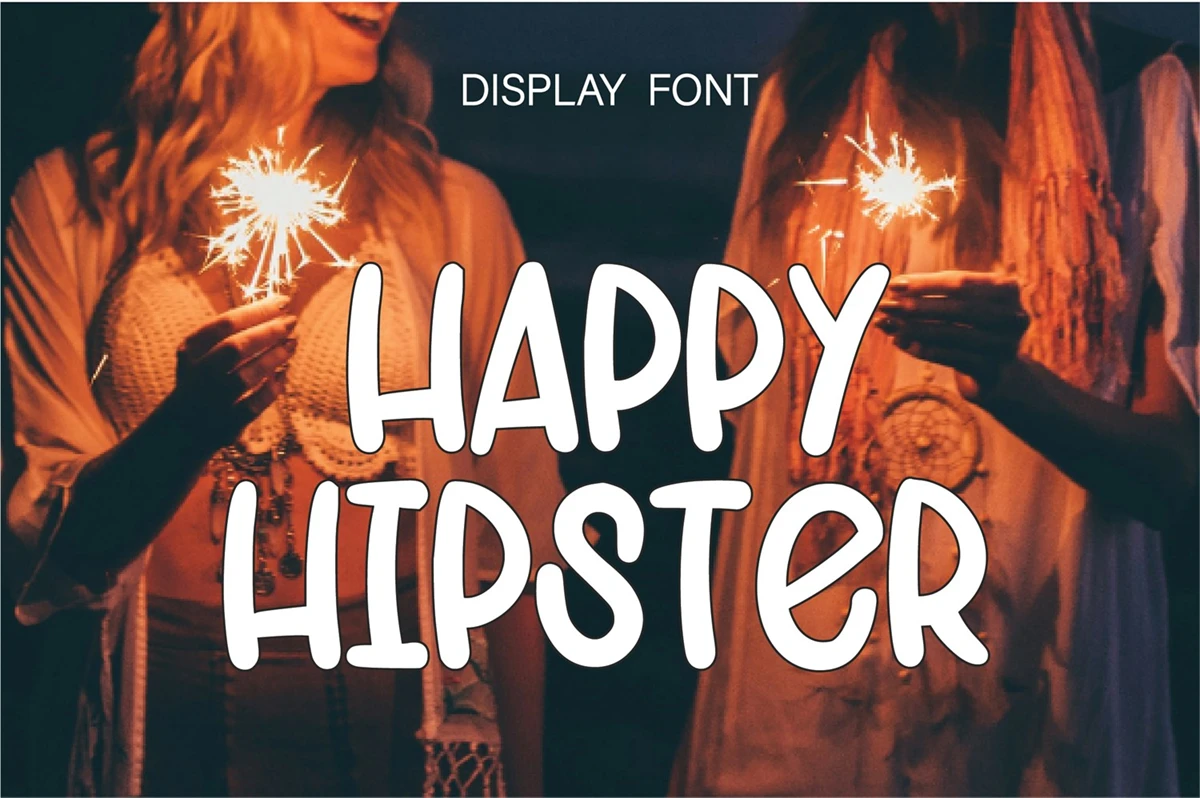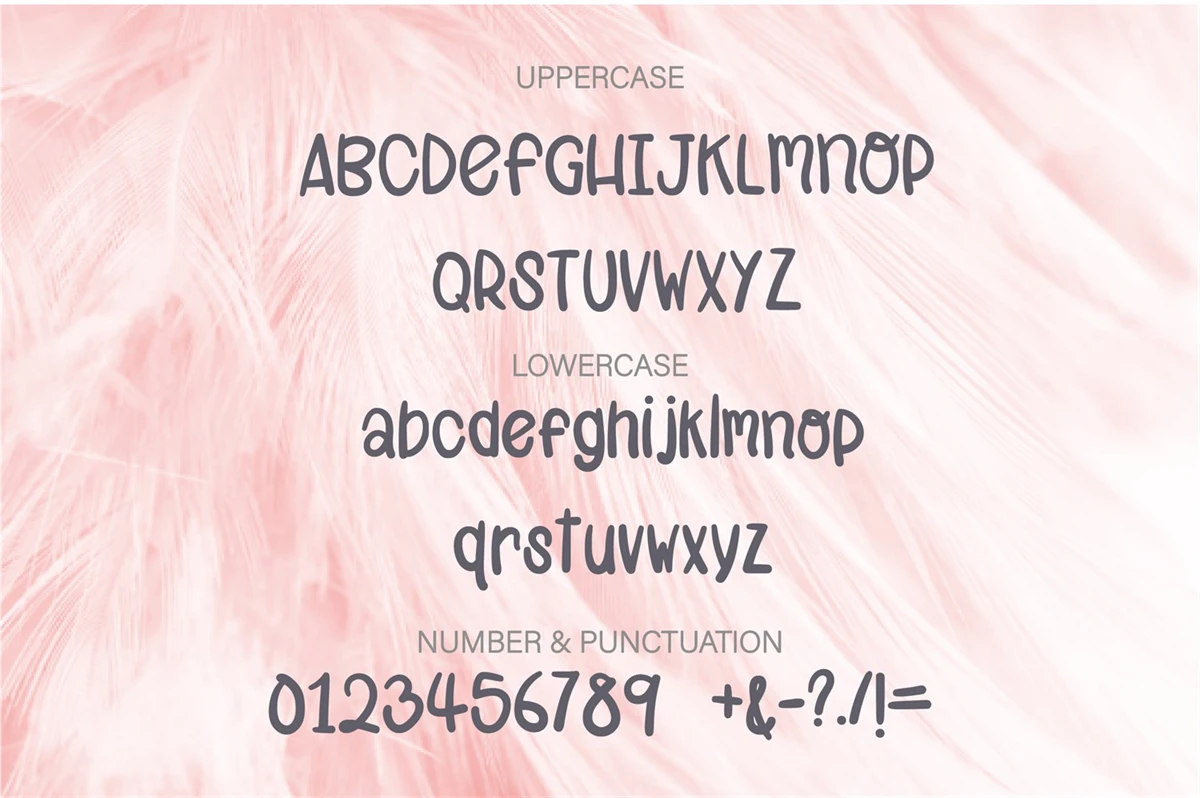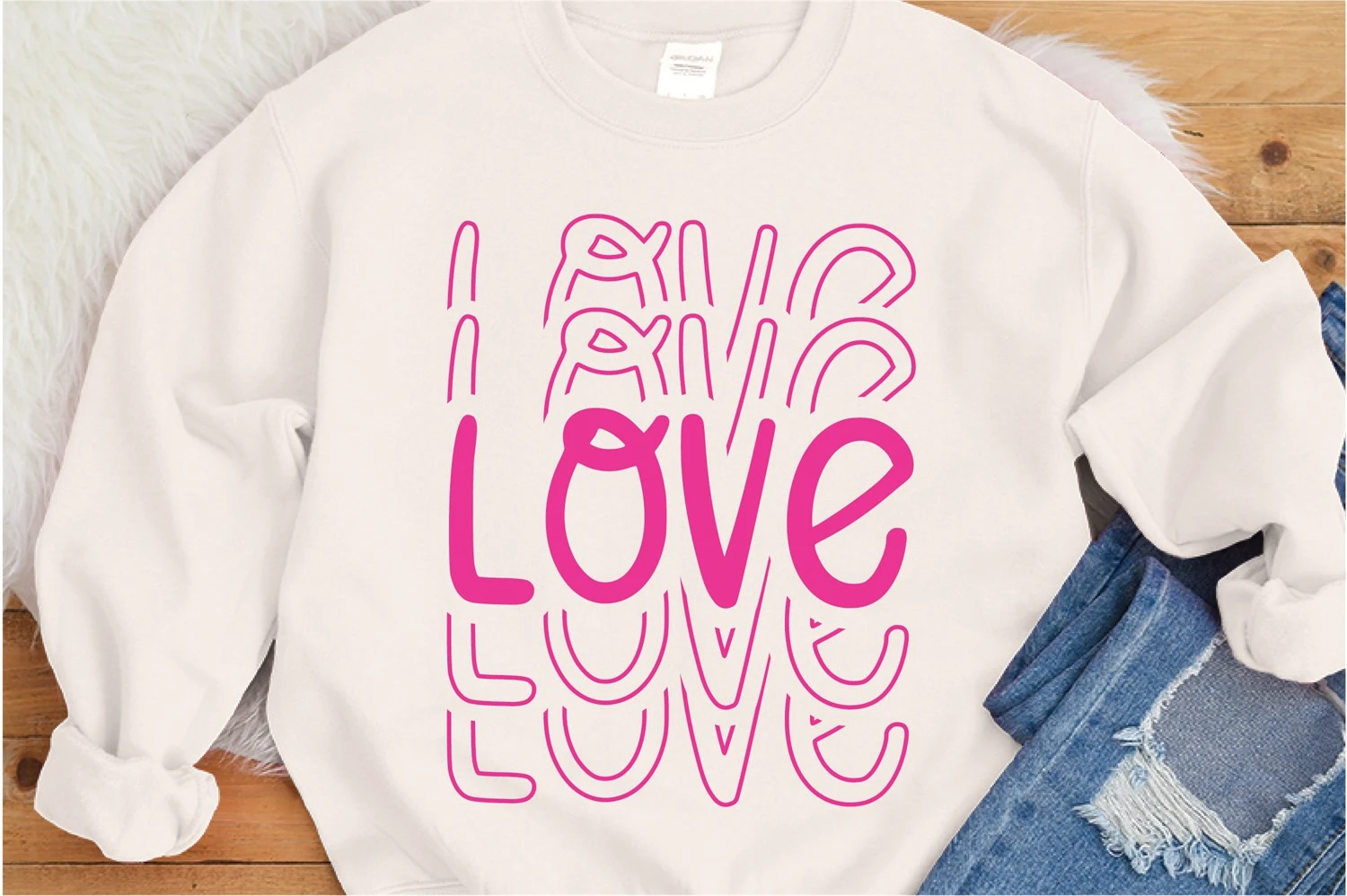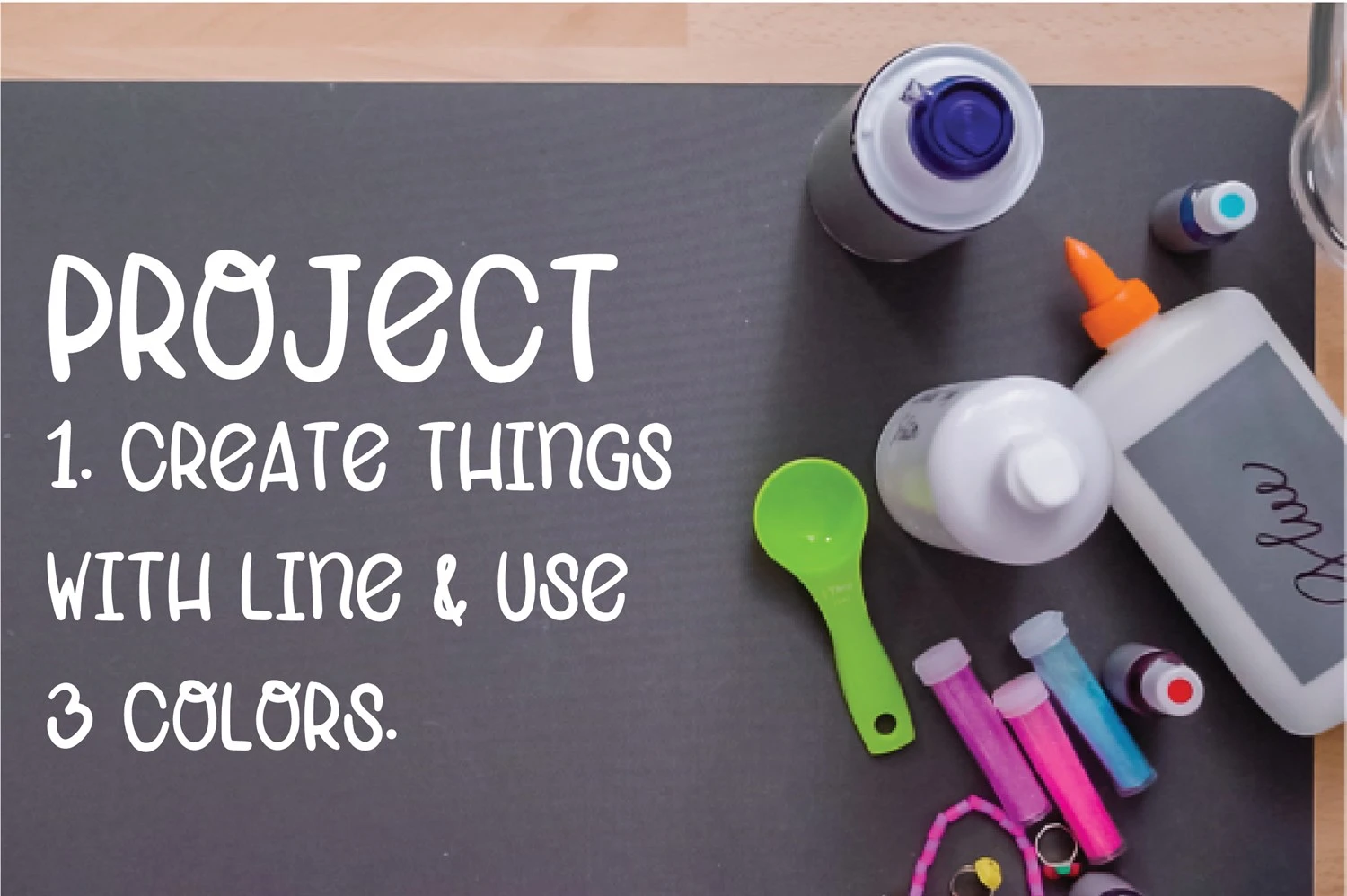
Happy Hipster is a cute and relaxed handwritten font. It is the best choice for creating eye-catching logos, branding materials, quotes, children activity or school project.